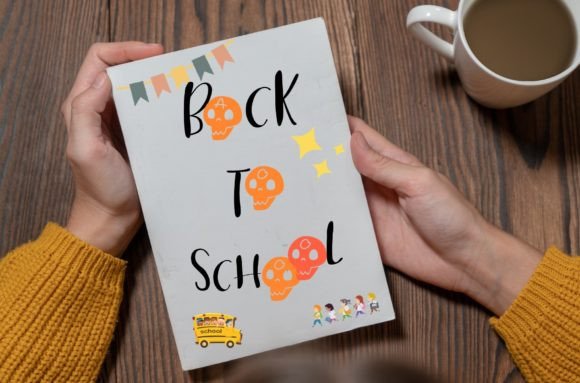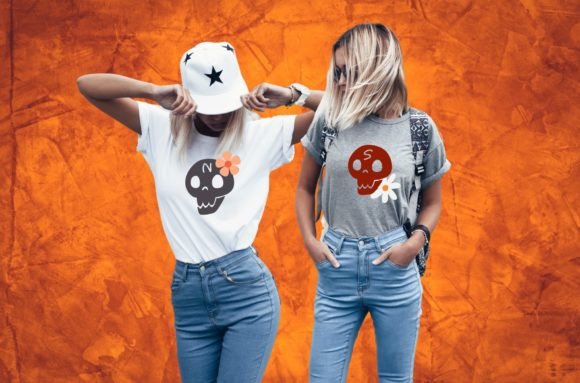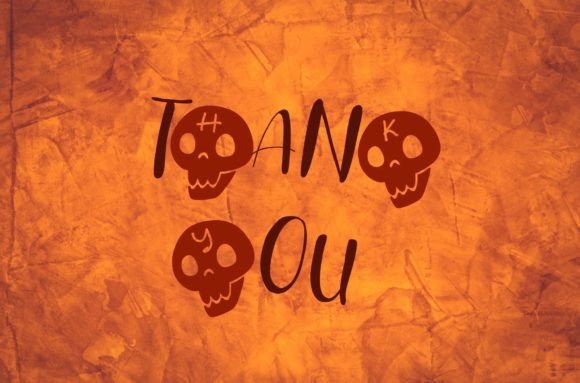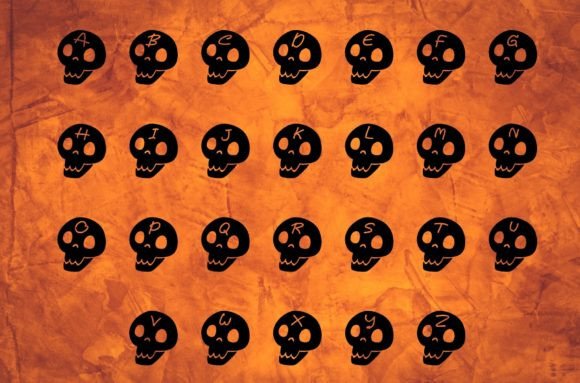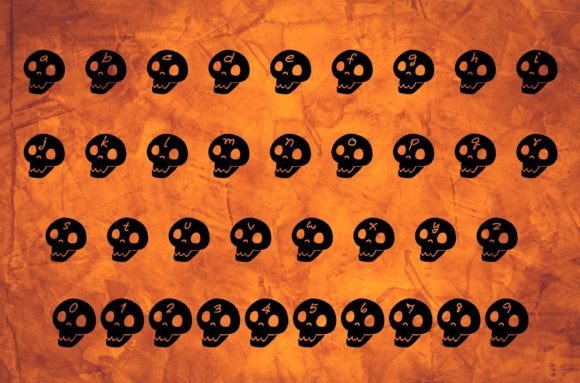
Unleash the Spookiness: Exploring the Halloween Skulls Font
As the spookiest time of the year approaches, designers and crafters are on the lookout for the perfect typography to add a touch of eeriness to their creations. Look no further than the Halloween Skulls Font, a spooky dingbats font that’s perfect for logos, branding, greeting cards, posters, magazines, social media, and websites.
What is the Halloween Skulls Font?
The Halloween Skulls Font is a unique and eye-catching dingbats font that’s specifically designed to add a spooky touch to your creative projects. With its intricate skull designs, this font is sure to make your designs stand out from the crowd. Whether you’re creating a logo, greeting card, or social media post, this font is perfect for adding a touch of Halloween spirit.
Features of the Halloween Skulls Font
The Halloween Skulls Font comes with a range of features that make it perfect for designers and crafters. Some of its key features include:
- Spooky Skull Designs: The font features intricate skull designs that are perfect for adding a touch of eeriness to your designs.
- Dingbats Font: The font is a dingbats font, which means it’s made up of symbols and icons rather than traditional letters.
- Perfect for Logos and Branding: The font is perfect for creating unique and eye-catching logos and branding materials.
- Scalable: The font is scalable, which means you can use it for a range of projects, from small greeting cards to large posters.
Uses for the Halloween Skulls Font
The Halloween Skulls Font is incredibly versatile and can be used for a range of creative projects. Here are some ideas to get you started:
- Logos and Branding: Use the font to create a unique and eye-catching logo or branding materials for your business.
- Greeting Cards: Add a touch of spookiness to your greeting cards with this font.
- Posters and Flyers: Use the font to create eye-catching posters and flyers for Halloween events or parties.
- Social Media: Add a touch of Halloween spirit to your social media posts with this font.
- Websites: Use the font to add a touch of eeriness to your website or blog.
Tips for Using the Halloween Skulls Font
Here are some tips for getting the most out of the Halloween Skulls Font:
- Experiment with Different Sizes: Experiment with different sizes to see how the font looks at different scales.
- Combine with Other Fonts: Combine the font with other fonts to create a unique and eye-catching design.
- Use in Combination with Images: Use the font in combination with images to create a spooky and eye-catching design.
The Halloween Skulls Font is a spooky and eye-catching dingbats font that’s perfect for designers and crafters. With its intricate skull designs and versatile uses, this font is sure to add a touch of Halloween spirit to your creative projects. Whether you’re creating a logo, greeting card, or social media post, this font is perfect for making your designs come alive.